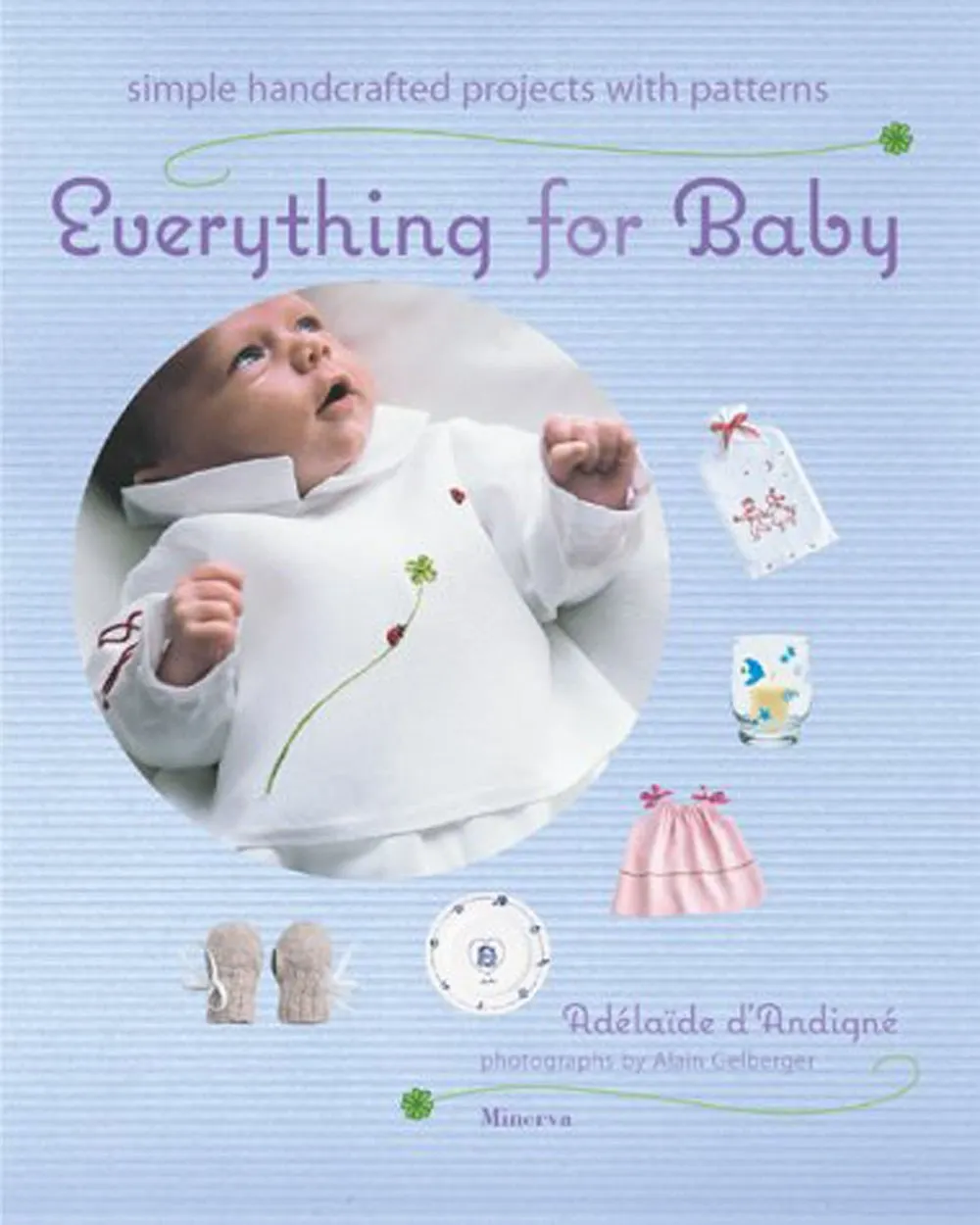
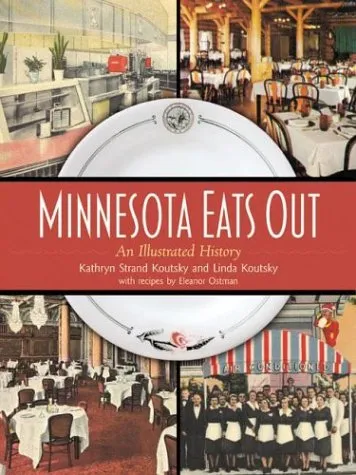
Minnesota Eats Out, by Kathryn Strand Koutsky and Linda Koutsky, was published recently by the Minnesota Historical Society Press. This really enjoyable book features two of my fonts: Blakely is used on the cover and for running heads inside, and Coquette is used throughout for initial caps.
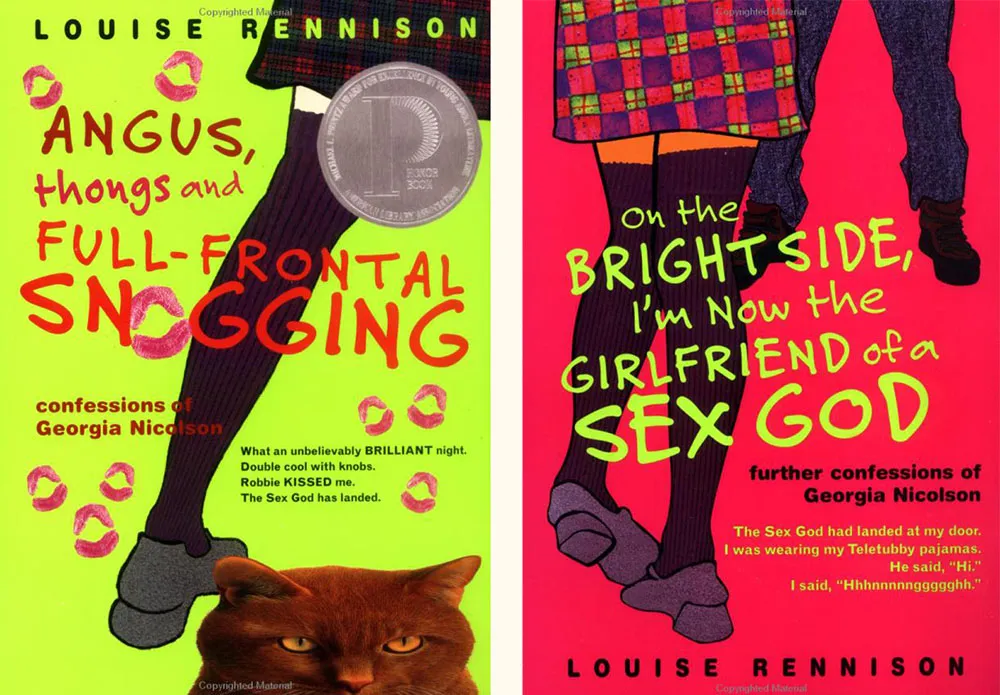
Felt Tip Roman is being used very effectively on this series of young adult novels by British writer Louise Rennison. There are at least five of them, but these two are my favorites.
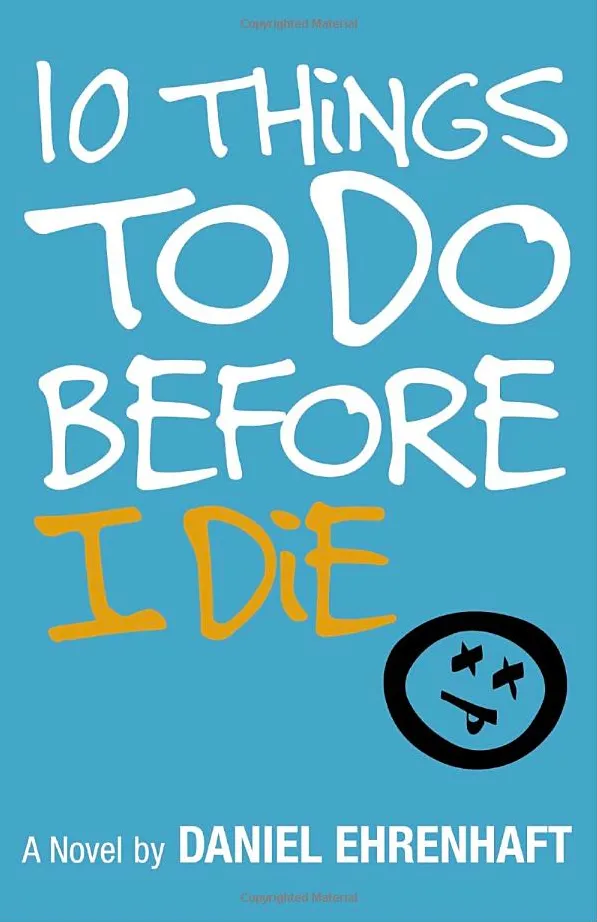
There must be something very “teen angst” about Felt Tip Roman. It keeps showing up on teen fiction titles like this. Looks good, although I see they didn’t like my cap I.
Imagine my surprise when I saw my face at the Post Office. Typeface, that is. A very prominent use of Felt Tip Roman.
I recently noticed Coquette used extensively in the book “Everything for Baby” by Adélaïdé D’Andigné and Alain Gelberger, published by Stewart, Tabori & Chang last year. Notice how the baby in the photo seems very interested in the font. Obviously, a budding typophile.